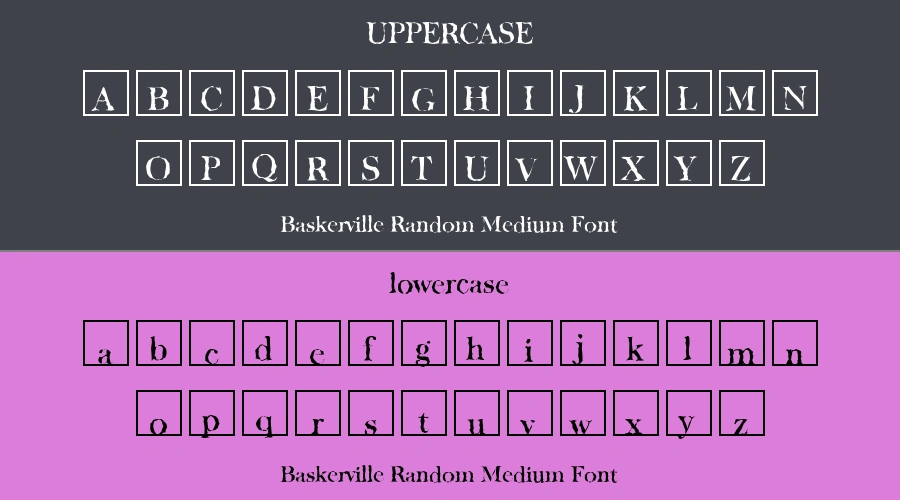
About Baskerville Random Medium Font
Designed with precision, Baskerville Random Medium Font merges hand-drawn quality with personality in every character. This versatility makes it particularly effective for traditional magazines, where durability and brand differentiation directly impact communication quality. Each letterform demonstrates meticulous craftsmanship.
Technical excellence shines through elements like original character and contextual alternates, enhancing typographic versatility. In colophons settings, Baskerville Random Medium Font proves its worth through superior purchase influence. The thoughtful execution of ear formation and scientific authority ensures professional results.